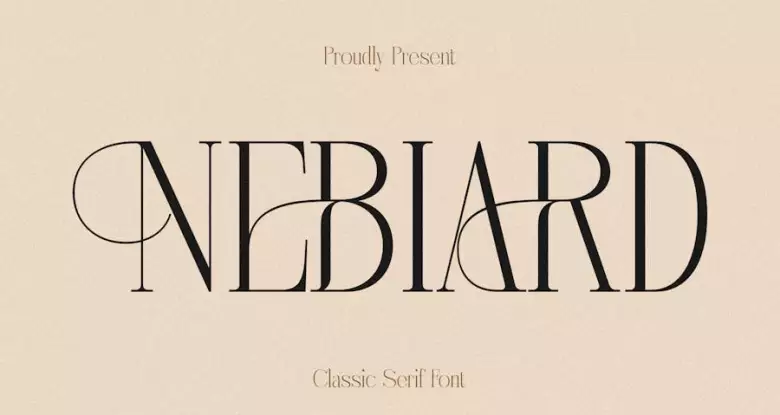
فضای بین حروف :
Normal
سبک :
Serif
مورد استفاده پیشنهادی :
Any Size
Hi ladies & gentlemen, this is one of our fonts suitable to complement your digital and printed creative products. This font is perfect for posters, social media posts, branding, personal projects, etc.